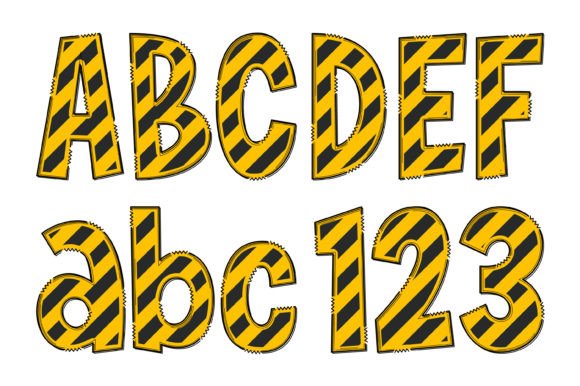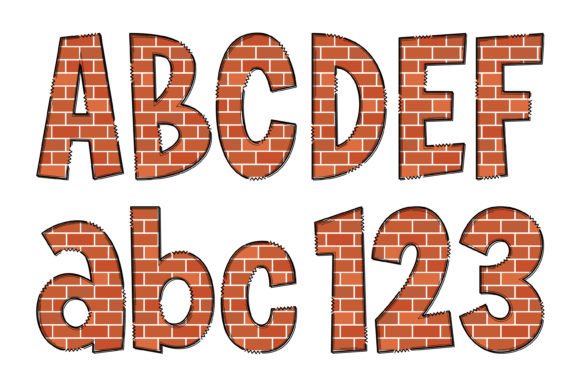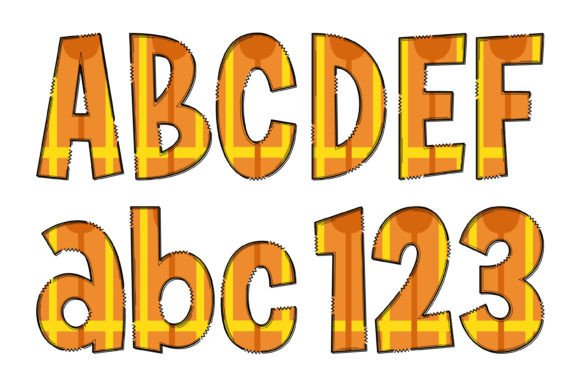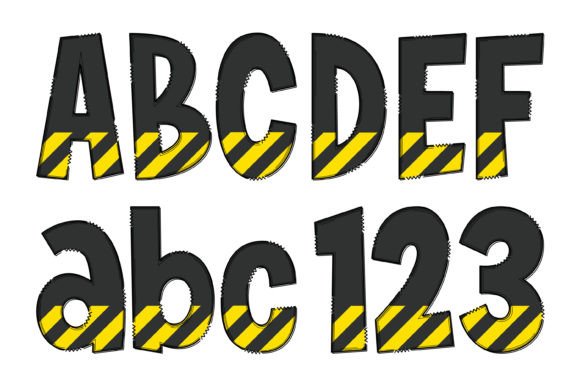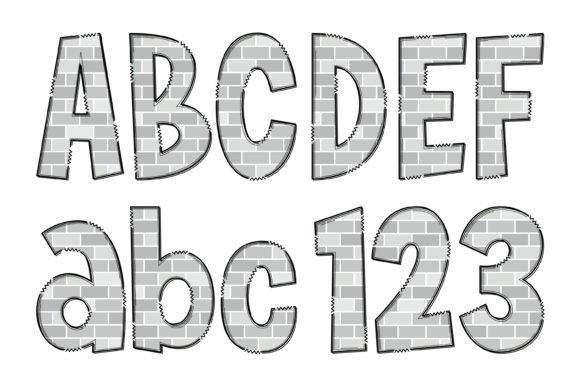
Unlock Creative Possibilities with Construction Bundle Font
The Construction Bundle Font is a versatile and playful font bundle that can add a touch of whimsy and artistic flair to various design projects. In this article, we’ll explore the uses, benefits, and technical details of this exciting font bundle, helping designers and crafters unlock its full creative potential.
What is Construction Bundle Font?
Construction Bundle Font is a collection of fonts designed to bring a playful and artistic feel to designs. Its unique and colorful style makes it an excellent choice for projects that require a fun and engaging aesthetic. The font bundle is available in Opentype-SVG format, ensuring compatibility with popular design software such as PhotoShop, Illustrator, Silhouette, and Inkscape.
Common Uses of Construction Bundle Font
Construction Bundle fonts are often used in designs that aim to convey a playful or artistic feel. Some common applications include:
- Children’s Books: Whimsical, colorful, and easy-to-read fonts are essential for creating an engaging reading experience for young audiences. Construction Bundle Font is perfect for children’s book designs, making reading fun and interactive.
- Posters and Flyers: Add a playful touch to your posters and flyers with Construction Bundle Font, making them stand out and grab attention.
- Invitations and Greeting Cards: Create personalized and artistic invitations and greeting cards that showcase your creativity and attention to detail.
- Crafting and DIY Projects: Use Construction Bundle Font to add a professional and artistic touch to your crafting and DIY projects, such as papercraft, scrapbooking, and more.
Benefits of Using Construction Bundle Font
By incorporating Construction Bundle Font into your design projects, you can:
- Add a playful touch: Bring a sense of fun and playfulness to your designs, making them more engaging and interactive.
- Stand out from the crowd: Use a unique and artistic font to differentiate your designs from others and make them more memorable.
- Enhance creativity: Experiment with various design possibilities and explore new creative avenues with Construction Bundle Font.
Tips for Using Construction Bundle Font
To get the most out of Construction Bundle Font, consider the following tips:
- Experiment with colors: Take advantage of the font’s color capabilities and try out different color combinations to add depth and interest to your designs.
- Mix and match: Combine Construction Bundle Font with other fonts and design elements to create unique and visually appealing compositions.
- Pay attention to legibility: Ensure that your text is easy to read by adjusting font size, style, and color to suit your design needs.
Construction Bundle Font is a versatile and artistic font bundle that can elevate your design projects and add a touch of playfulness and creativity. With its compatibility with popular design software and wide range of applications, this font bundle is perfect for designers, crafters, and artists looking to unlock new creative possibilities. By understanding its uses, benefits, and technical details, you can harness the full potential of Construction Bundle Font and take your designs to the next level.